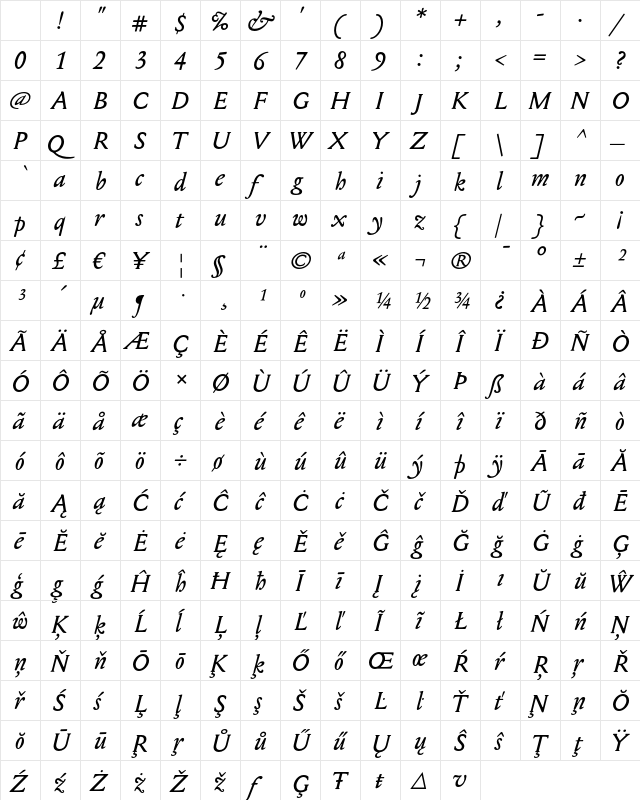
Mediaeval is a composed and adaptable typeface that performs quietly and consistently across a wide range of design contexts. The slanted form adds forward momentum and visual energy.
Pro Tip: Use Mediaeval for emphasis, pull quotes, and subheadings where its slanted energy can add rhythm to the layout.